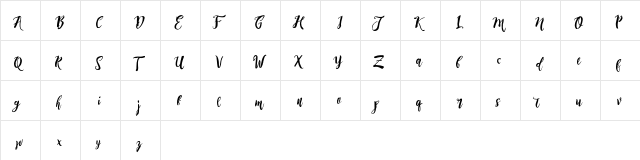
DirtylineRising Brush Free Regular
| Foundry | Dirtyline Studio |
| Designer | Hendra Maulia |
Design Context for DirtylineRising Brush Free Typeface
DirtylineRising Brush Free brings a calligraphic fluidity to the page — its connecting strokes and expressive curves give it an unmistakably human quality.
Font Pairing: Combine DirtylineRising Brush Free with a simple geometric sans for maximum contrast — the tension between flowing curves and clean structure is a classic typographic pairing.
Pro Tip: Pair DirtylineRising Brush Free with a clean sans-serif for supporting text. The contrast between fluid script and geometric structure creates an elegant typographic hierarchy.